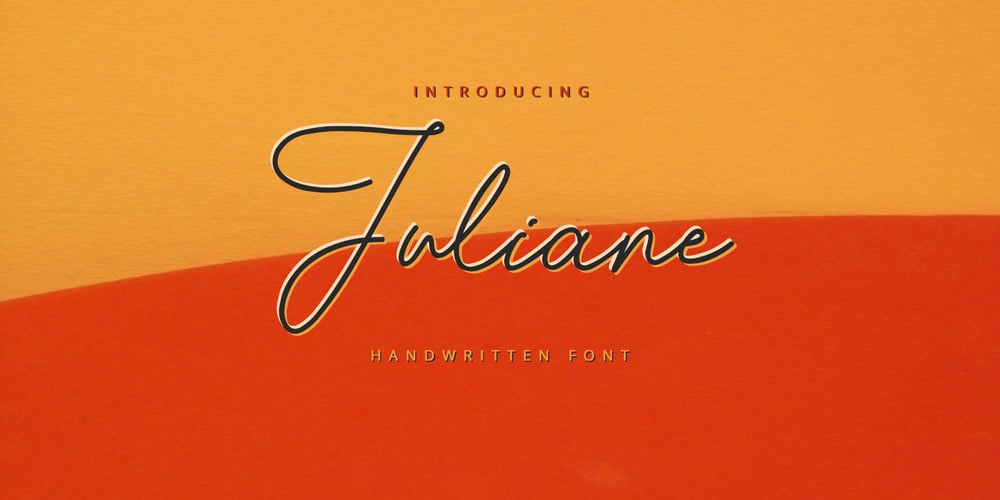
Juliane Font Family was designed by Photo-Lettering Collection Revival and published by Just Lett. Juliane contains 1 styles and family package options. Juliane is a thin lettered and delicate script font. Fall for its ravishing style and use it to create gorgeous wedding invitations, beautiful stationary art, eye-catching social media posts, and much more!